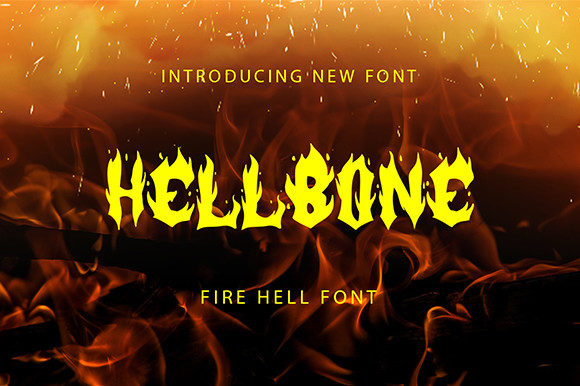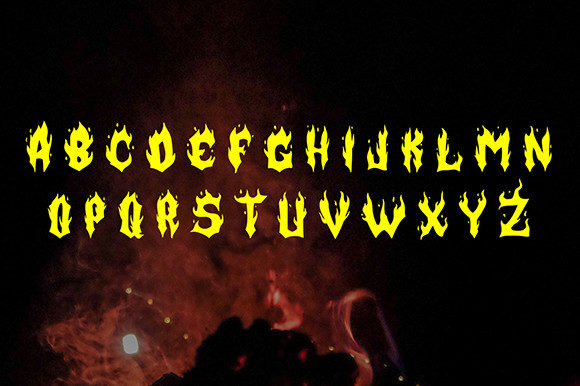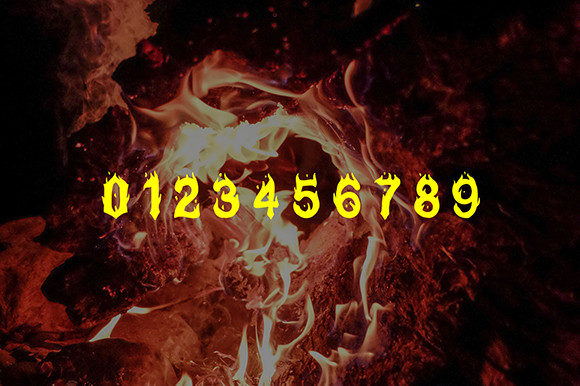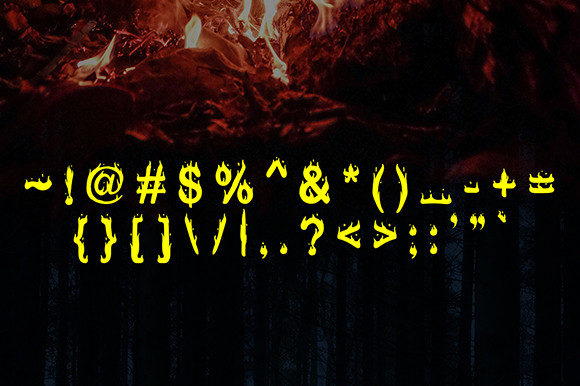
Hellbone Font: A Fiery Display Font for Creepy Designs
About the Hellbone Font
The Hellbone Font offers a perfect balance of form and function for your design needs. Hellbone is a scary and dark looking decorative font. Use it for each of the designs that could benefit from a creepy and original vibe.
Hellbone excels in projects demanding a bold, aggressive aesthetic. Ideal applications include horror-themed posters, album art, logotypes for extreme sports brands, or edgy apparel designs. Its strong, gothic character makes it unsuitable for body text or user interfaces where readability is paramount; long passages set in Hellbone would be difficult to decipher.
Consider pairing Hellbone with a clean sans-serif like Futura for contrast, or a sharp geometric sans-serif for a more modern, stylized feel. For a slightly softer contrast, a neutral serif like Garamond could work, providing readability in supporting text while maintaining the overall dark mood. Avoid pairing it with script fonts, as the combination could appear cluttered.
Hellbone’s core personality is aggressive and rebellious. It projects a sense of darkness and power, making it perfect for brands aiming for a strong, memorable, and slightly menacing presence.